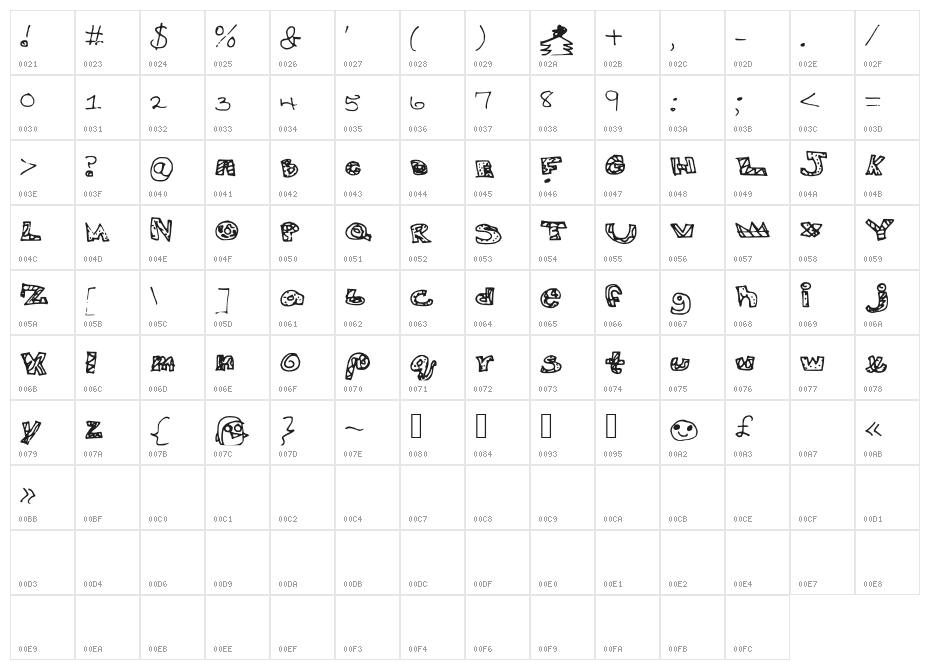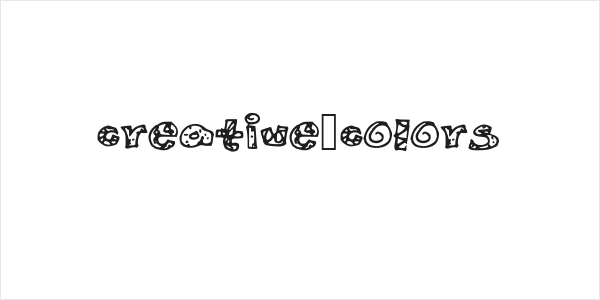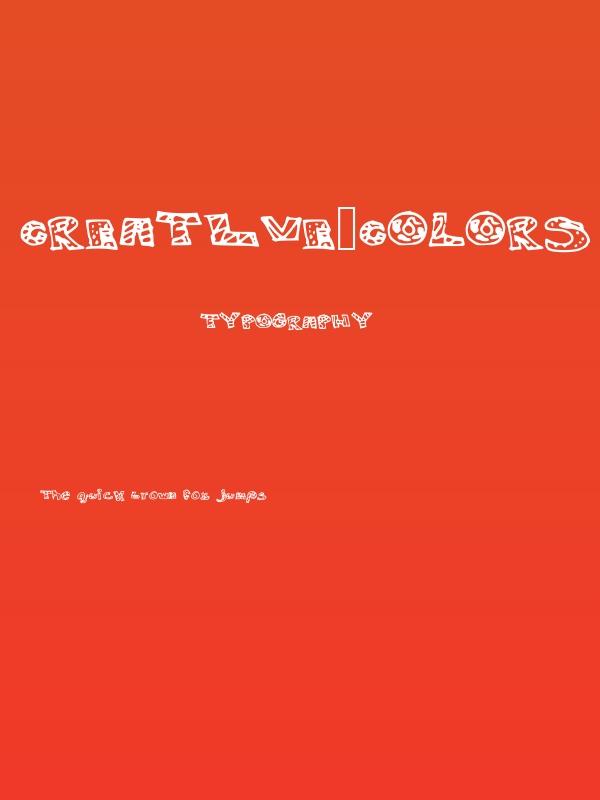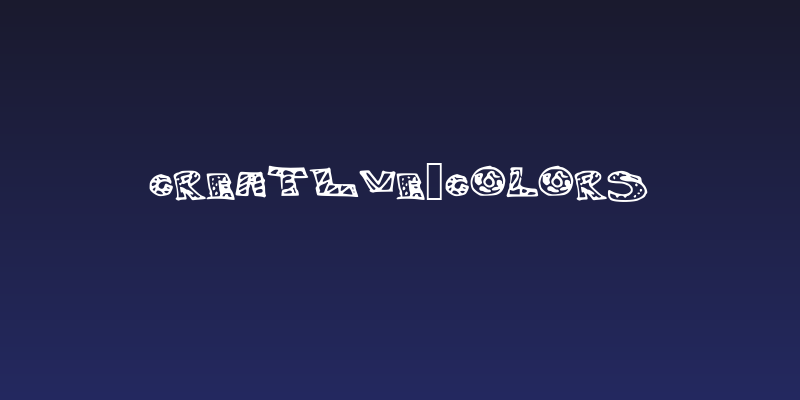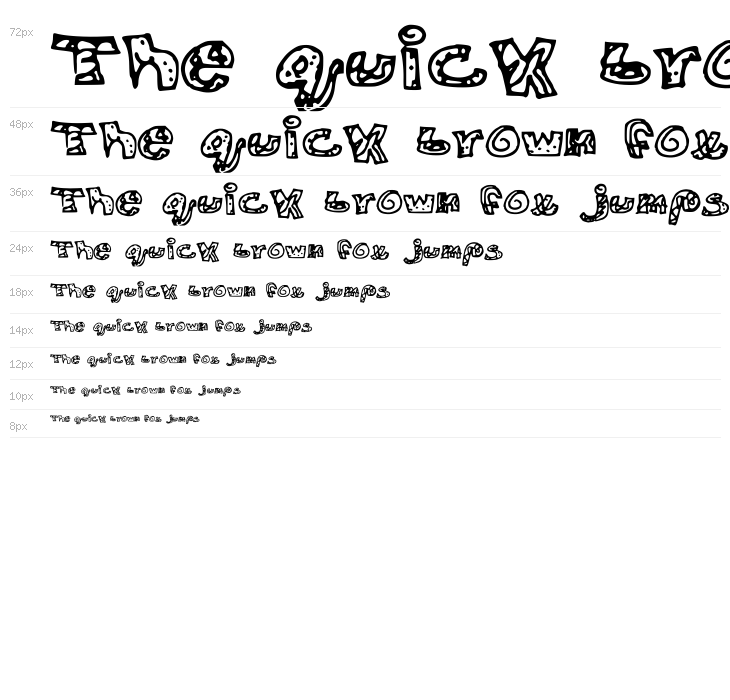
Creative_Colors Font
Creative_Colors Description
This playful and whimsical font features a variety of decorative patterns within each character, including dots, stripes, and zigzags. The letters are bold and have a hand-drawn, cartoonish style that adds a sense of fun and creativity. The uppercase and lowercase letters maintain a consistent style, while numbers and special characters are equally expressive and unique. The font's irregular shapes and playful patterns make it stand out, ideal for projects that require a touch of creativity and humor.
CREATIVE_COLORS UPPERCASE
CREATIVE_COLORS LOWERCASE
CREATIVE_COLORS OTHER CHARS